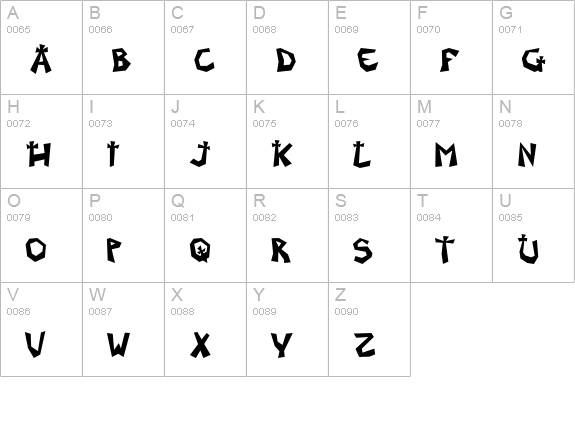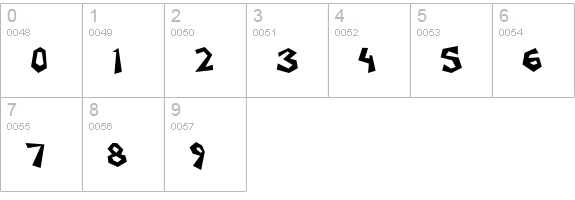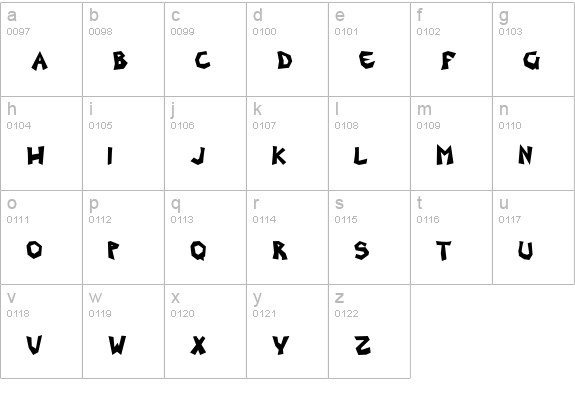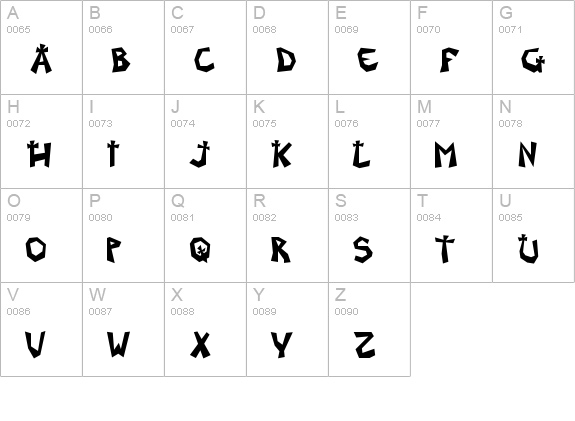
Grave Dirt font is a hauntingly beautiful typeface that exudes a sense of mystery and darkness. Its rough and weathered appearance gives it a unique and eerie charm, making it perfect for designs that require a touch of the macabre. The uneven lines and distressed texture of Grave Dirt font add a sense of antiquity and depth to any project, creating a truly captivating visual experience. What makes Grave Dirt font even more appealing is that it is completely free to download at FontsMarket.com. This means that you can add this captivating typeface to your collection without having to spend a single penny. Whether you're working on a Halloween-themed project, a horror movie poster, or simply want to add a touch of the supernatural to your designs, Grave Dirt font is the perfect choice. Download it today and unleash its dark and mysterious energy in your creations.